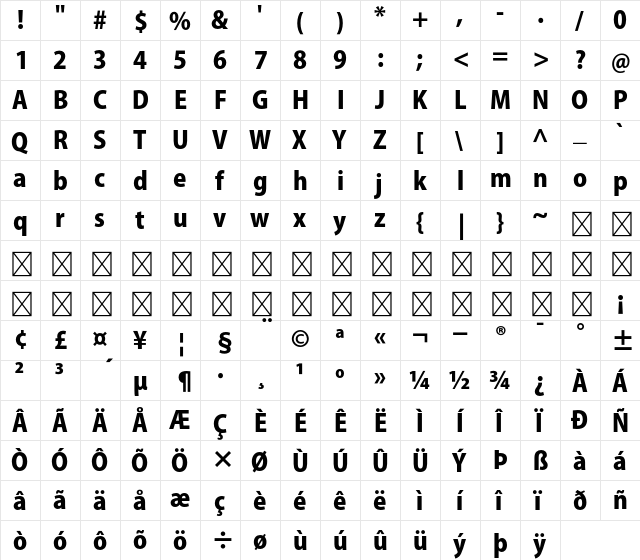
Kozuka Gothic Std H Font Preview
Kozuka Gothic Std H
| Designer | Masahiko Kozuka |
Design Context for Kozuka Gothic Std Typeface
Kozuka Gothic Std takes a clean, functional approach — its unadorned letterforms prioritise legibility and work reliably across screen and print environments.
Font Pairing: Works well alongside a characterful serif or display font that can carry the expressive load while Kozuka Gothic Std handles the functional copy.
Pro Tip: Pair Kozuka Gothic Std with a display or serif font for headlines — its neutral character makes it an excellent supporting player in complex typographic systems.